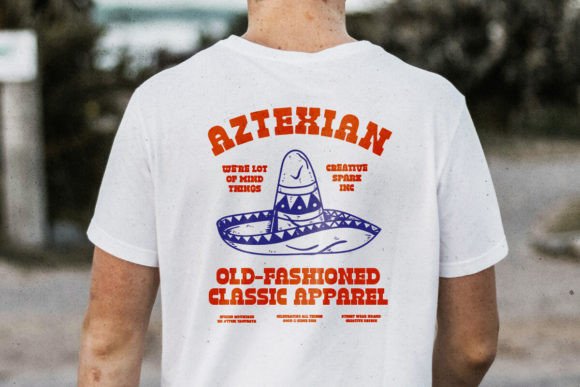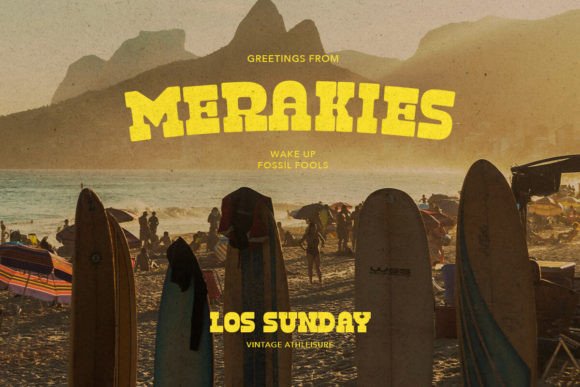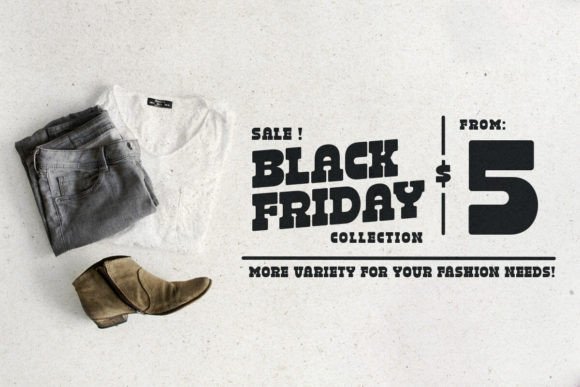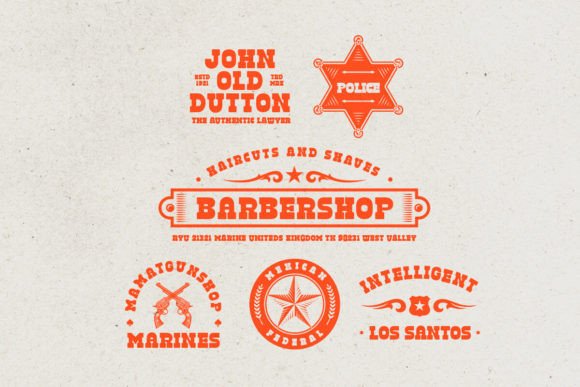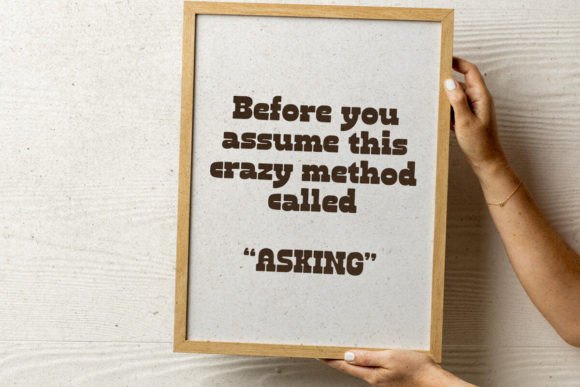
Introducing Banditor Font: The Bold and Edgy Slab Serif for Cowboy Themes and Beyond
Are you a designer or crafter looking for a font that exudes boldness and a touch of ruggedness? Look no further than Banditor Font, a striking reverse slab serif that’s perfect for cowboy-themed projects and a wide range of design applications. In this article, we’ll dive into the features and benefits of Banditor Font, and explore how you can use it to elevate your designs.
What is Banditor Font?
Banditor Font is a bold and reverse slab serif font that’s designed to make a statement. Its unique lettering style is inspired by classic cowboy typography, with a modern twist that makes it versatile and adaptable. The font’s bold and chunky design makes it perfect for headlines, titles, and quotes, while its clean and legible structure ensures that it’s easy to read.
Key Features of Banditor Font
- Bold and Reverse Slab Serif: Banditor Font features a bold and reverse slab serif design that’s perfect for making a statement.
- Cowboy Themes: The font’s western-inspired design makes it ideal for cowboy-themed projects, such as posters, logos, and branding.
- Multi-Language Support: Banditor Font supports multiple languages, making it a great choice for designers who work with international clients.
- Retro Design: The font’s vintage-inspired design makes it perfect for retro-style designs, such as logos, posters, and packaging.
- Branding and Logo Design: Banditor Font is suitable for branding and logo design, thanks to its bold and memorable design.
Use Cases for Banditor Font
Banditor Font is a versatile font that can be used for a wide range of design applications. Here are some use cases to get you started:
- Cowboy-Themed Designs: Use Banditor Font to create bold and eye-catching designs for cowboy-themed projects, such as posters, logos, and branding.
- Retro-Style Logos: Create vintage-inspired logos and branding with Banditor Font’s retro-style design.
- Quotes and Headlines: Use Banditor Font to create bold and attention-grabbing quotes and headlines for social media, blogs, and websites.
- Branding and Packaging: Use Banditor Font to create bold and memorable branding and packaging designs that stand out.
Why Choose Banditor Font?
So why choose Banditor Font for your design projects? Here are just a few reasons:
- Unique Design: Banditor Font features a unique and bold design that’s sure to stand out.
- Versatility: The font is versatile and adaptable, making it suitable for a wide range of design applications.
- Easy to Read: Despite its bold design, Banditor Font is clean and legible, making it easy to read.
- Multi-Language Support: The font supports multiple languages, making it a great choice for designers who work with international clients.
In conclusion, Banditor Font is a bold and edgy slab serif font that’s perfect for cowboy-themed projects and a wide range of design applications. Its unique design, versatility, and multi-language support make it a great choice for designers and crafters looking to add a touch of ruggedness to their designs. Whether you’re creating a logo, branding, or quote, Banditor Font is sure to make a statement.